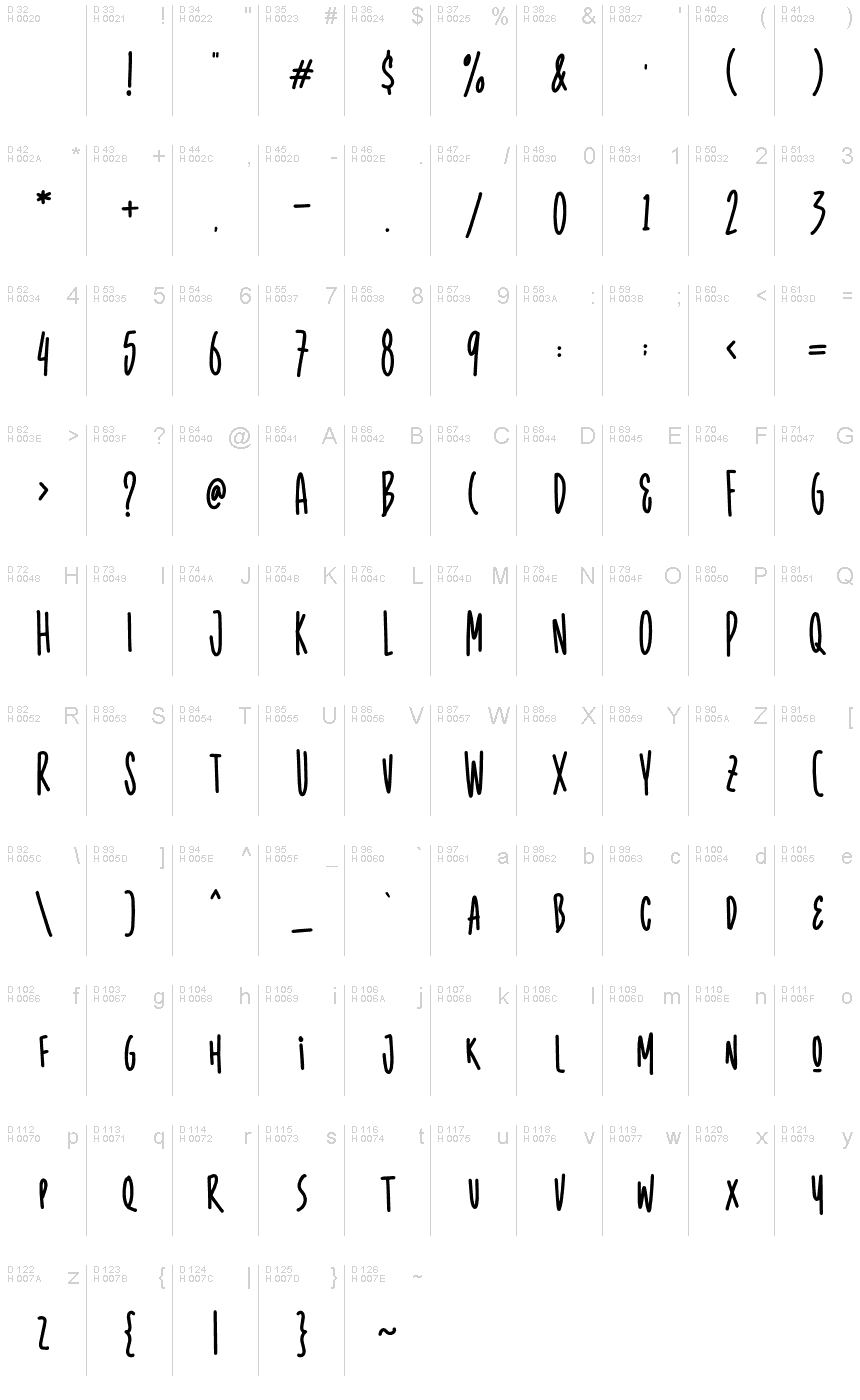
RadgrowsDemo
Radgrows, designed by Letterhend Studio, is a charming handwritten font that exudes a sense of elegance and creativity. With its semi-light weight and extra-condensed width, this font is perfect for projects that require a delicate touch and a space-saving design.
From wedding invitations to logo designs, Radgrows adds a unique and personal feel to any project. Whether you're creating whimsical greeting cards or designing eye-catching packaging, Radgrows will captivate your audience with its graceful curves and refined simplicity.
Let your imagination flourish with Radgrows!